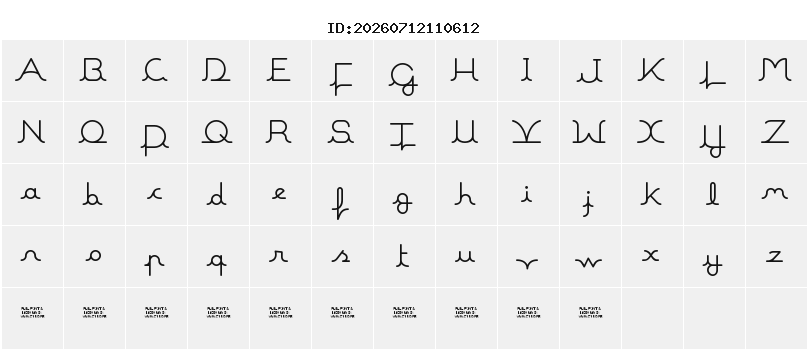
Maline Preview
• Font Name: Maline
• Font ID: FlorentCourtaigne: Maline: 2008
• Full Font Name: Maline
• PostScript Name: Maline
• Designer: Florent Courtaigne
• Manufacturer: Florent Courtaigne
About Maline.ttf
Maline.ttf is a modern, elegant sans-serif font designed for ultimate readability and visual harmony. Perfect for branding, headlines, web design, and print materials.